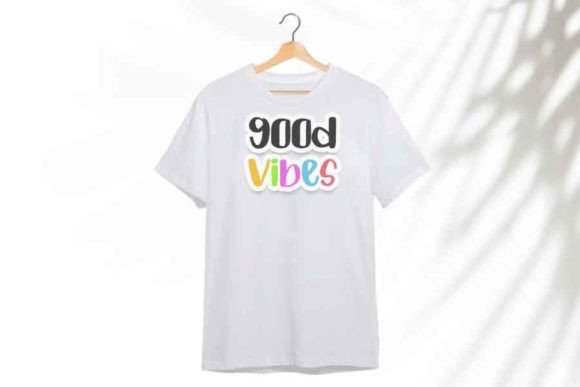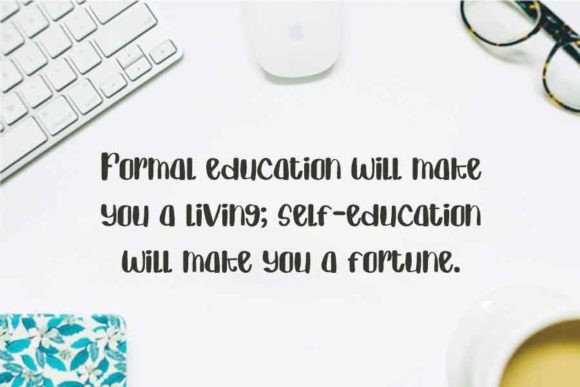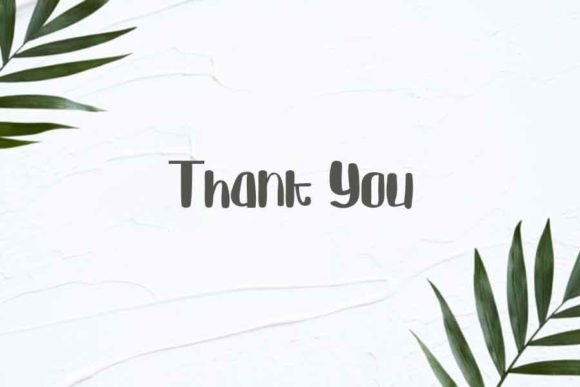
Introducing Grandma Font: The Perfect Handwritten Font for Your Creative Projects
Are you a designer or crafter looking for a font that exudes warmth, joy, and a touch of nostalgia? Look no further than Grandma Font! This beautiful, handwritten font is perfect for adding a personal touch to your designs, and its versatility makes it suitable for a wide range of projects.
What Makes Grandma Font So Special?
Grandma Font is a simple, yet ravishing handwritten font that boasts an adaptable style, making it ideal for both formal and informal designs. Its unique charm lies in its ability to evoke a sense of warmth and personality, making it perfect for designs that require a human touch.
Uses for Grandma Font
Grandma Font is a versatile font that can be used for a variety of creative projects, including:
- Wedding Invitations: Add a touch of elegance and romance to your wedding invitations with Grandma Font.
- Thank You Cards: Express your gratitude with beautifully designed thank you cards featuring Grandma Font.
- Weddings: Use Grandma Font to create stunning wedding stationery, including place cards, menus, and more.
- Greeting Cards: Create personalized greeting cards for birthdays, holidays, and other special occasions.
- Logos: Add a touch of personality to your logo designs with Grandma Font.
Why Designers and Crafters Love Grandma Font
Grandma Font has become a favorite among designers and crafters due to its unique characteristics, including:
- Unique Style: Grandma Font boasts a distinctive, handwritten style that sets it apart from other fonts.
- Ease of Use: Grandma Font is easy to read and works well in a variety of sizes, making it perfect for both digital and print designs.
- Customization: Grandma Font can be easily customized to fit your design needs, making it perfect for creating unique and personalized designs.
Tips for Using Grandma Font in Your Designs
To get the most out of Grandma Font, follow these tips:
- Pair with Other Fonts: Pair Grandma Font with other fonts to create a unique and visually appealing design.
- Keep it Simple: Don’t be afraid to keep your design simple and elegant – Grandma Font shines on its own!
Grandma Font is a beautiful, handwritten font that is perfect for designers and crafters looking to add a personal touch to their designs. Its versatility, unique style, and ease of use make it an excellent choice for a wide range of creative projects. Whether you’re creating wedding invitations, greeting cards, or logos, Grandma Font is sure to become your new go-to font.